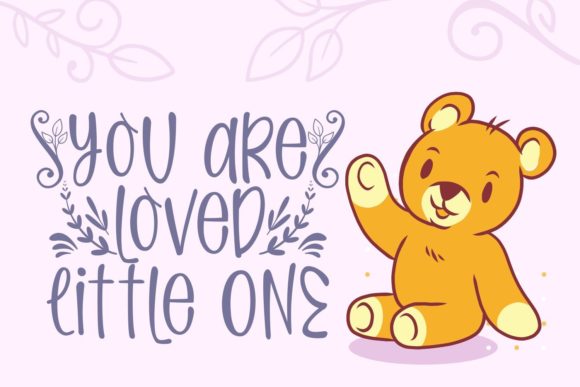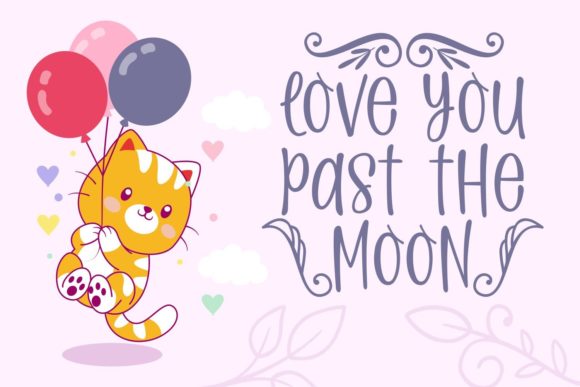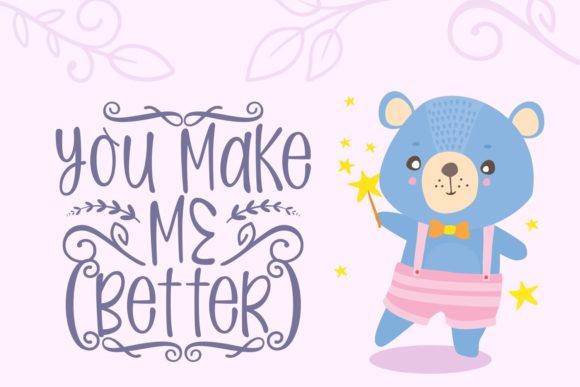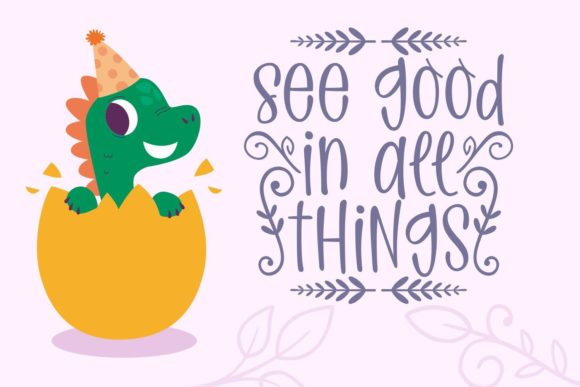
Cute My Love Font – Free Download
Introduction to Cute My Love Font
Cute My Love is an absolutely stunning handwritten font.
It has a lovely, natural accent and a stylish, cursive flair that can elevate the look of any creative project .
Key Features of Cute My Love Font